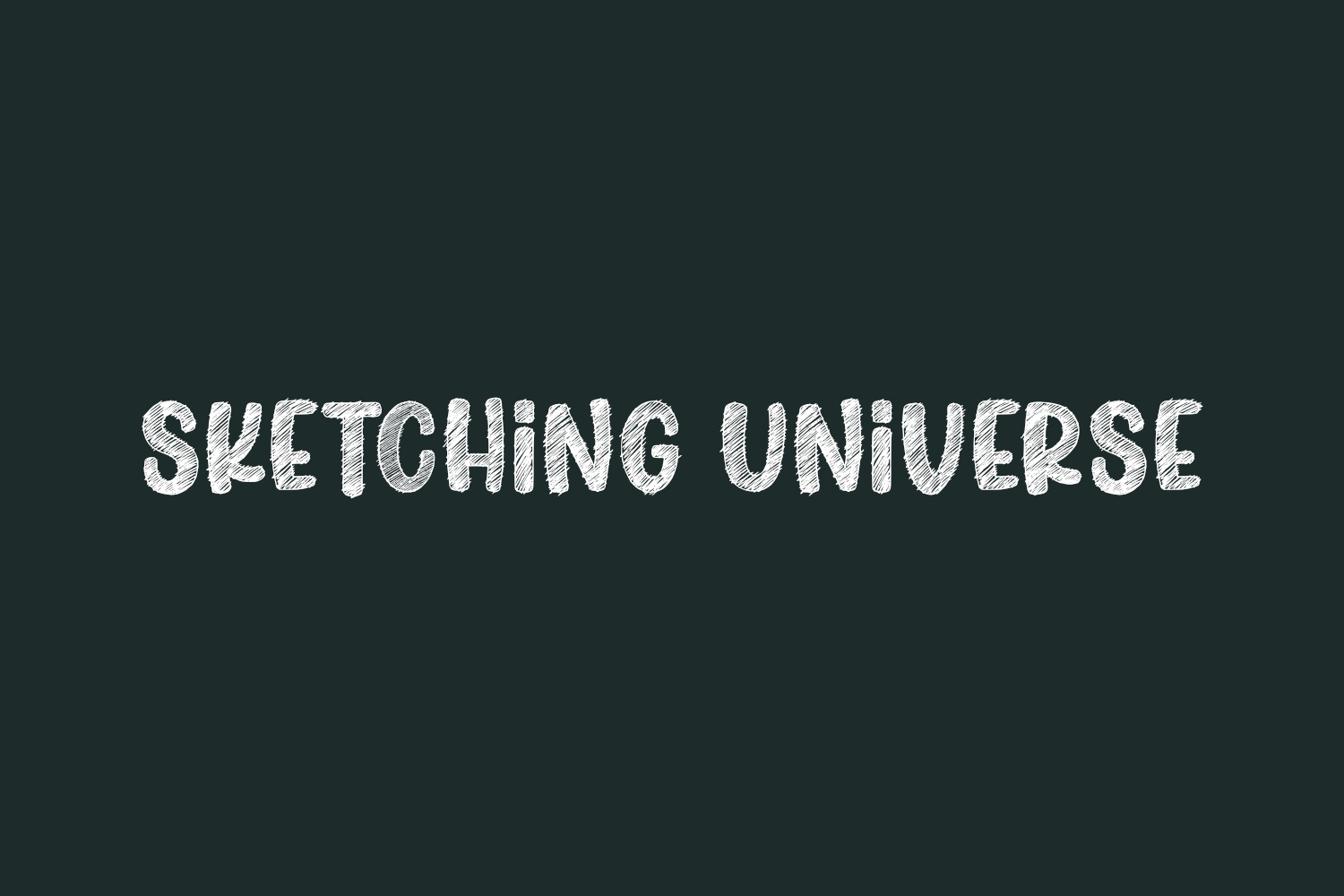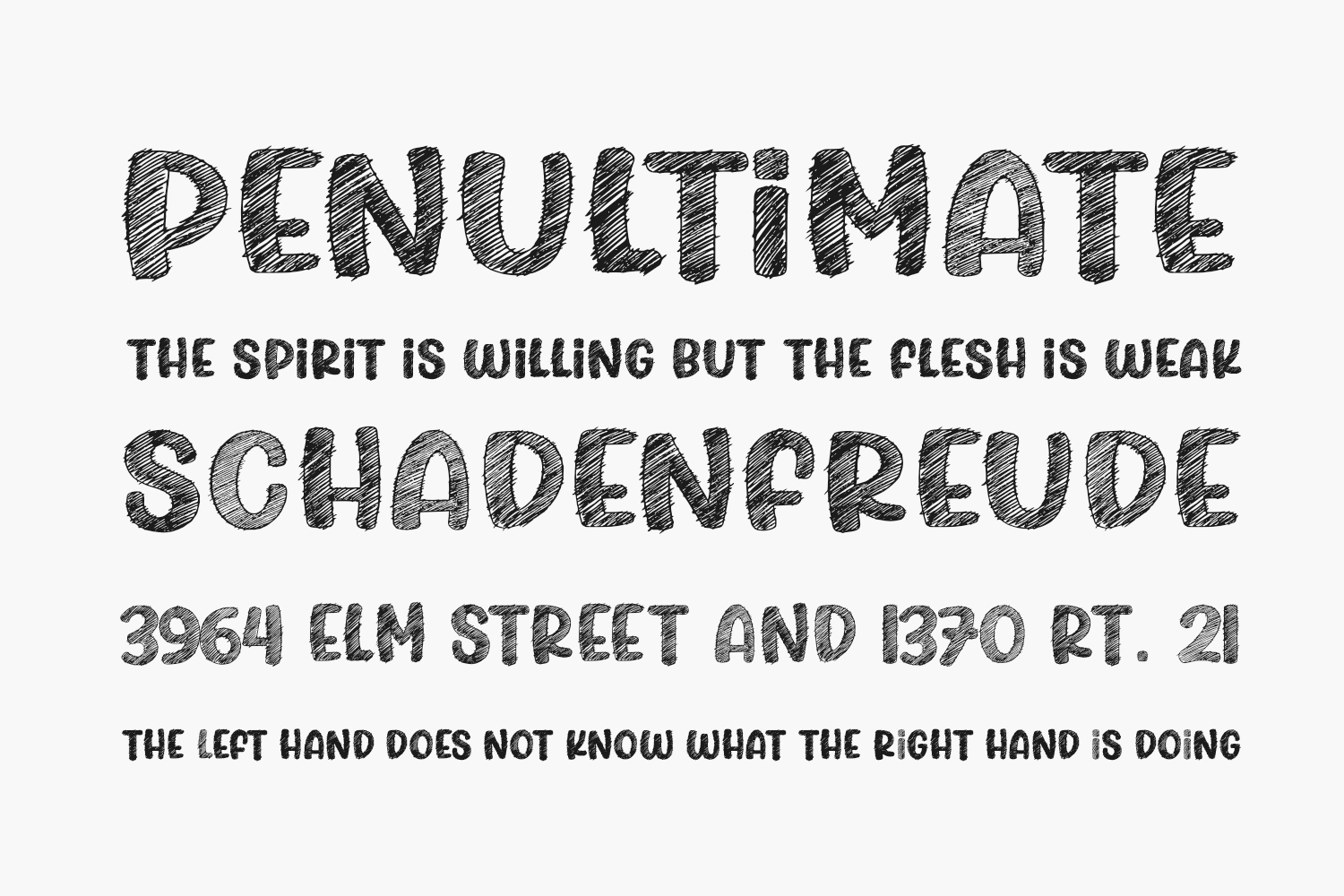
Sketching Universe Free Font is a cute and friendly outlined display font. Whatever the topic, this font will be a wonderful asset to your font library, as it has the potential to enhance any creation. Sketching Universe Free Font was designed by Subectype & Orenari and is free for personal use only. Please purchase the full version for commercial use.